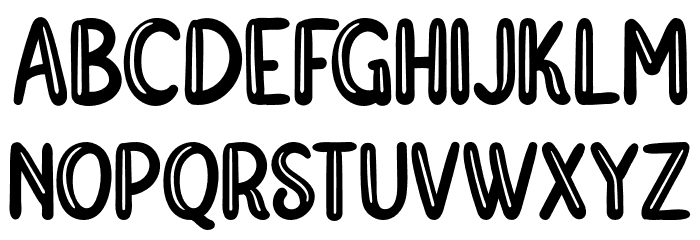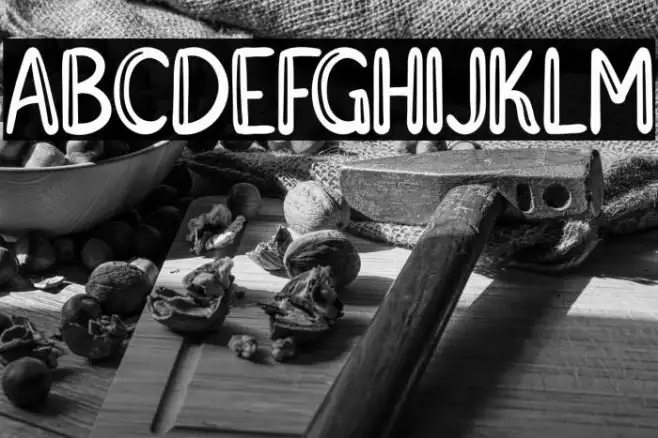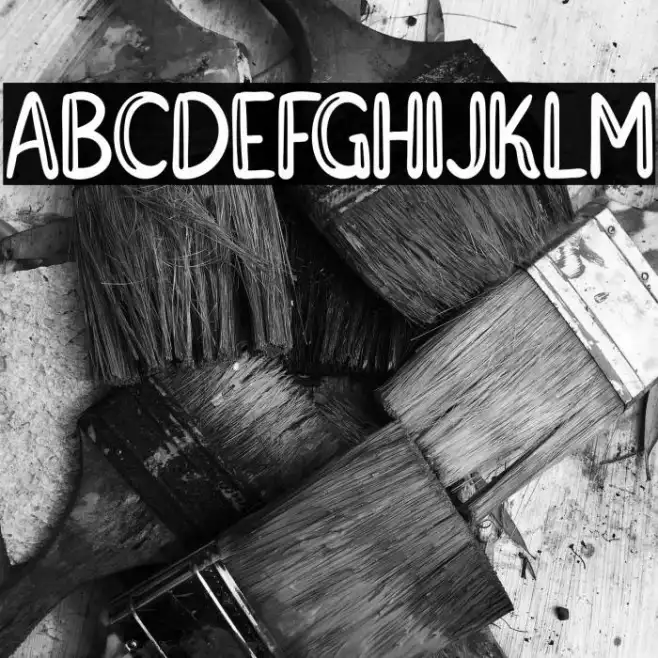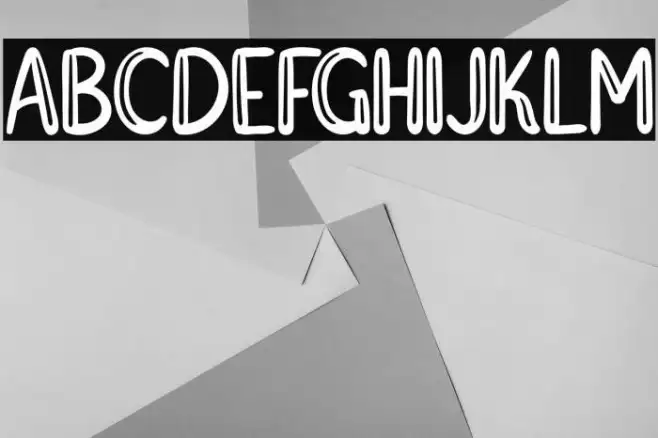
AgnosticMirossaFREE Font
This font features a playful and bold design with a hand-drawn aesthetic. The letters are uppercase and have a consistent thickness, creating a uniform appearance. The rounded edges and slightly irregular shapes give it a casual and friendly feel, making it suitable for projects that require a touch of whimsy and approachability. The strokes are thick, providing a strong presence on the page, while the overall style remains informal and inviting.
A playful, bold, hand-drawn uppercase font with a casual and friendly feel.
- Font: AgnosticMirossaFREE
- Proposed Projects: Ideal for children's book covers, playful branding, greeting cards, and informal event posters.
- Overall Style: Playful, Casual